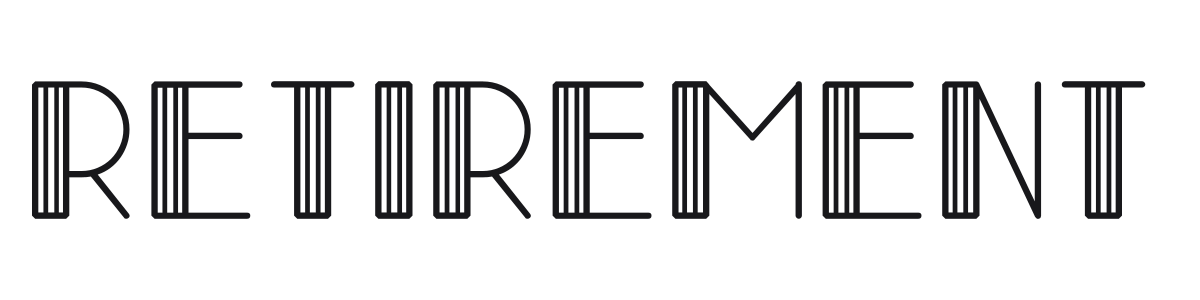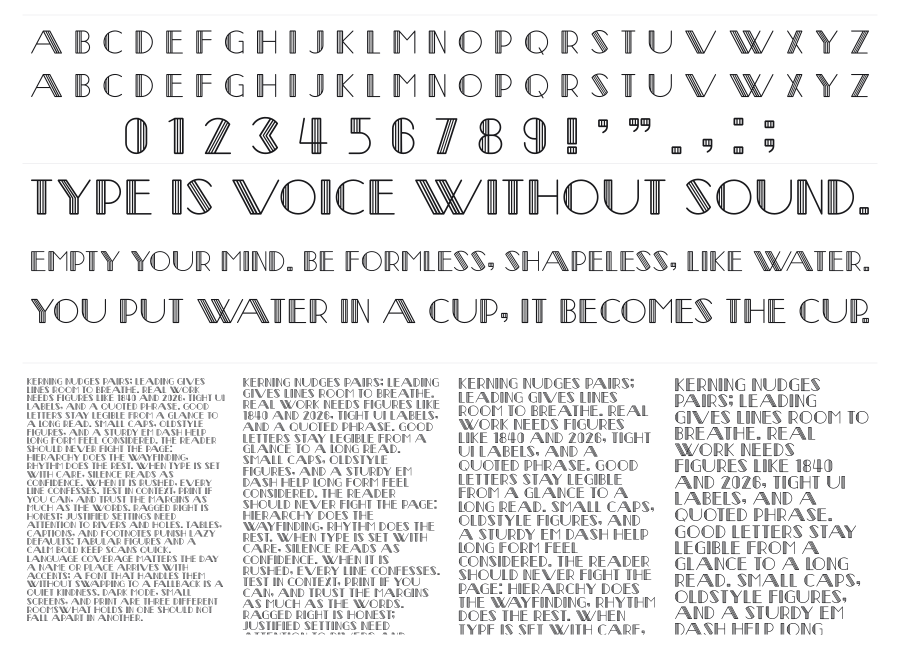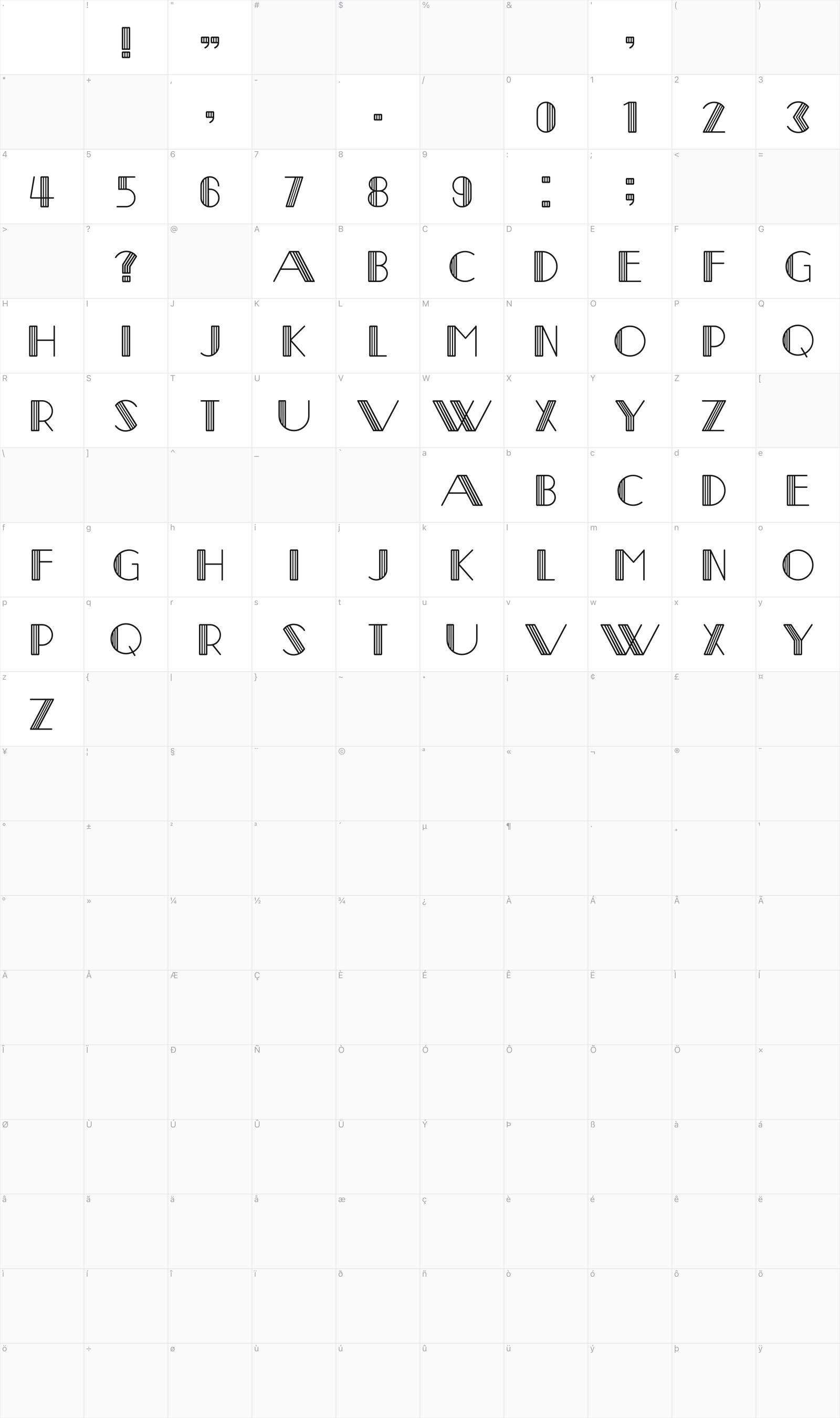
Retirement
Retirement is a geometric Art Deco display font with a dramatic inline stripe treatment that fills each character with parallel lines, evoking the ornamental typography of 1920s and 1930s luxury design. The tall, upright proportions and clean construction give it a sophisticated backbone, while the layered ribbon effect adds unmistakable period glamour. It suits headlines, event branding, and packaging where a golden-age aesthetic is the goal.